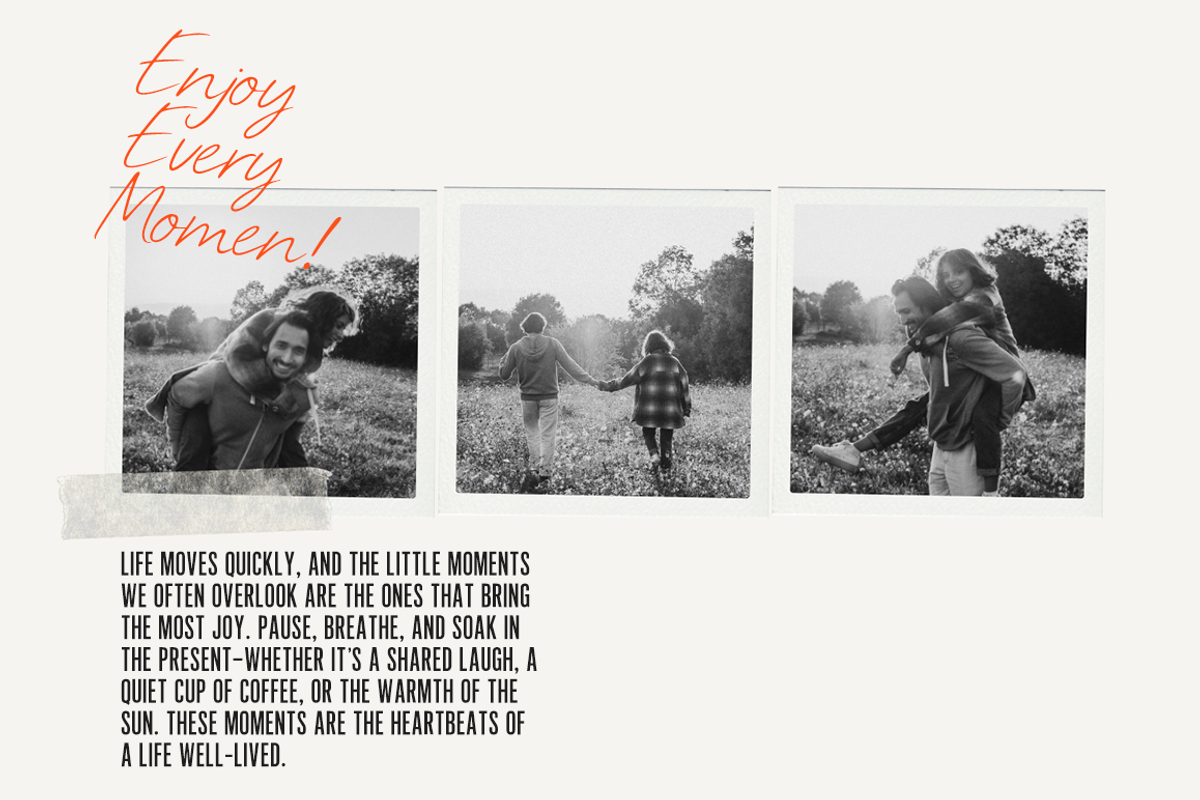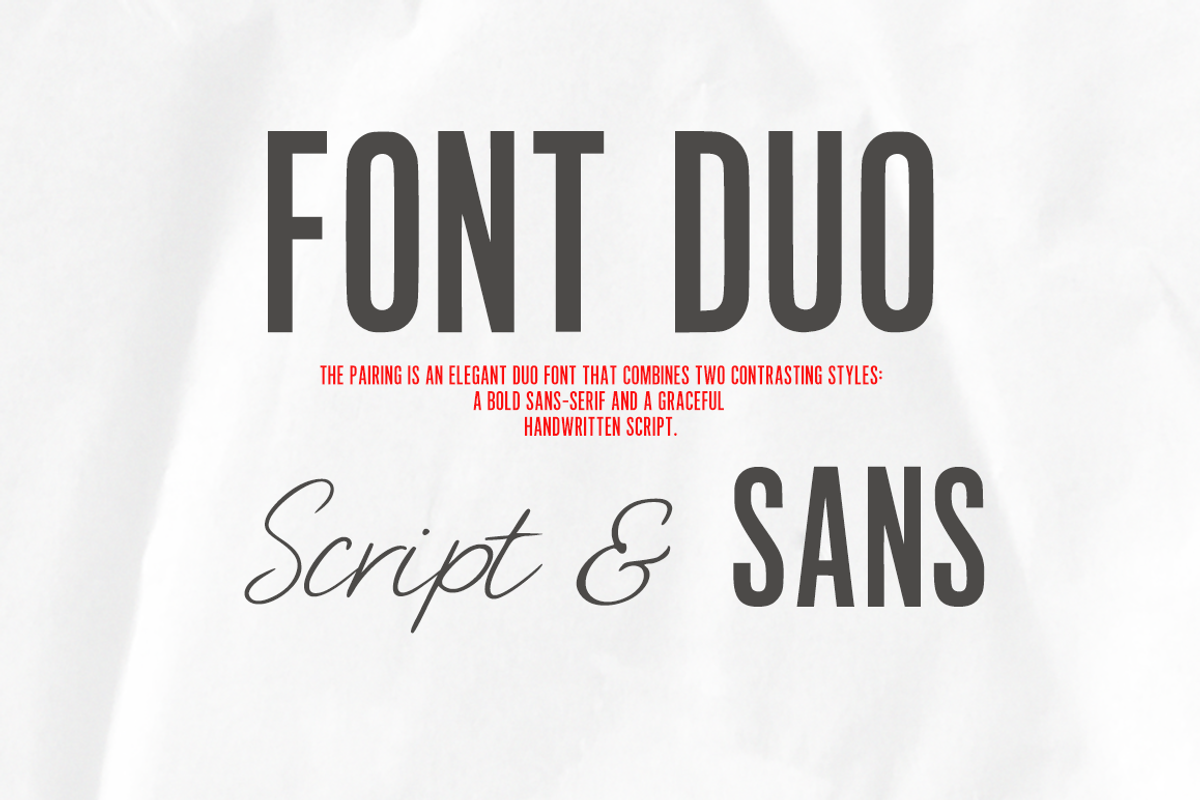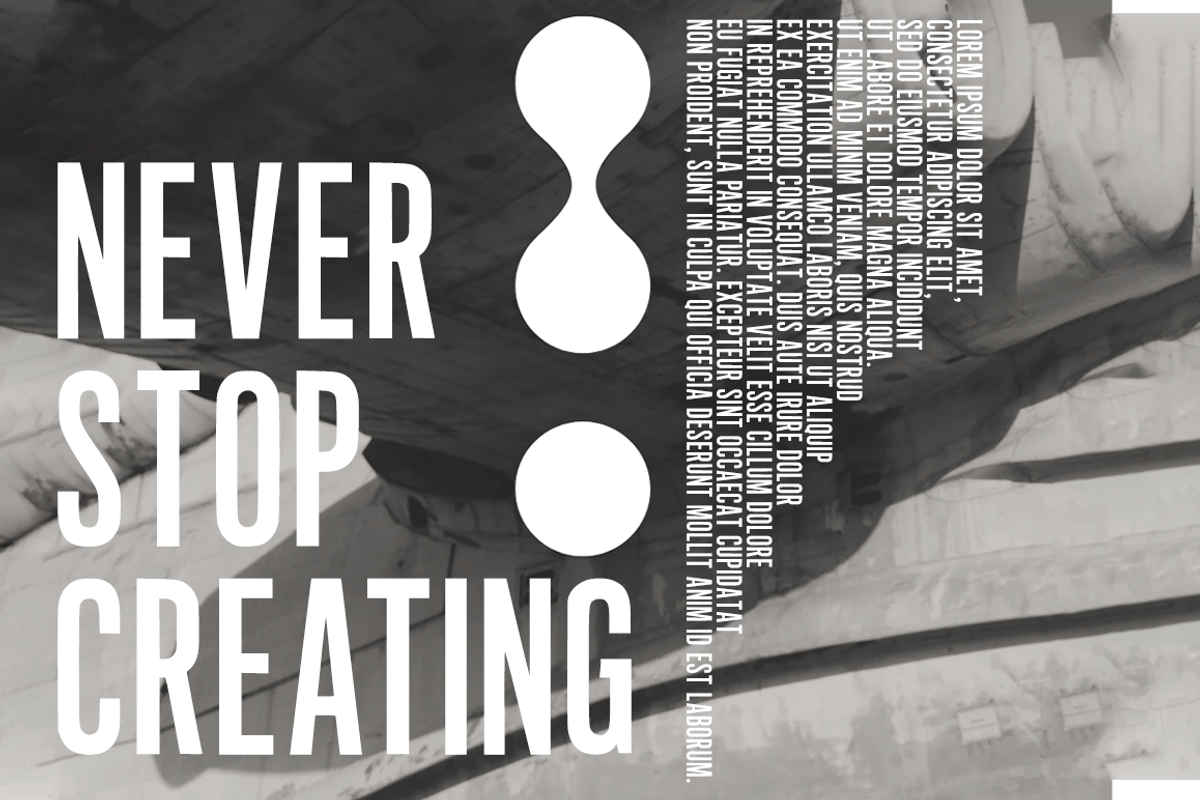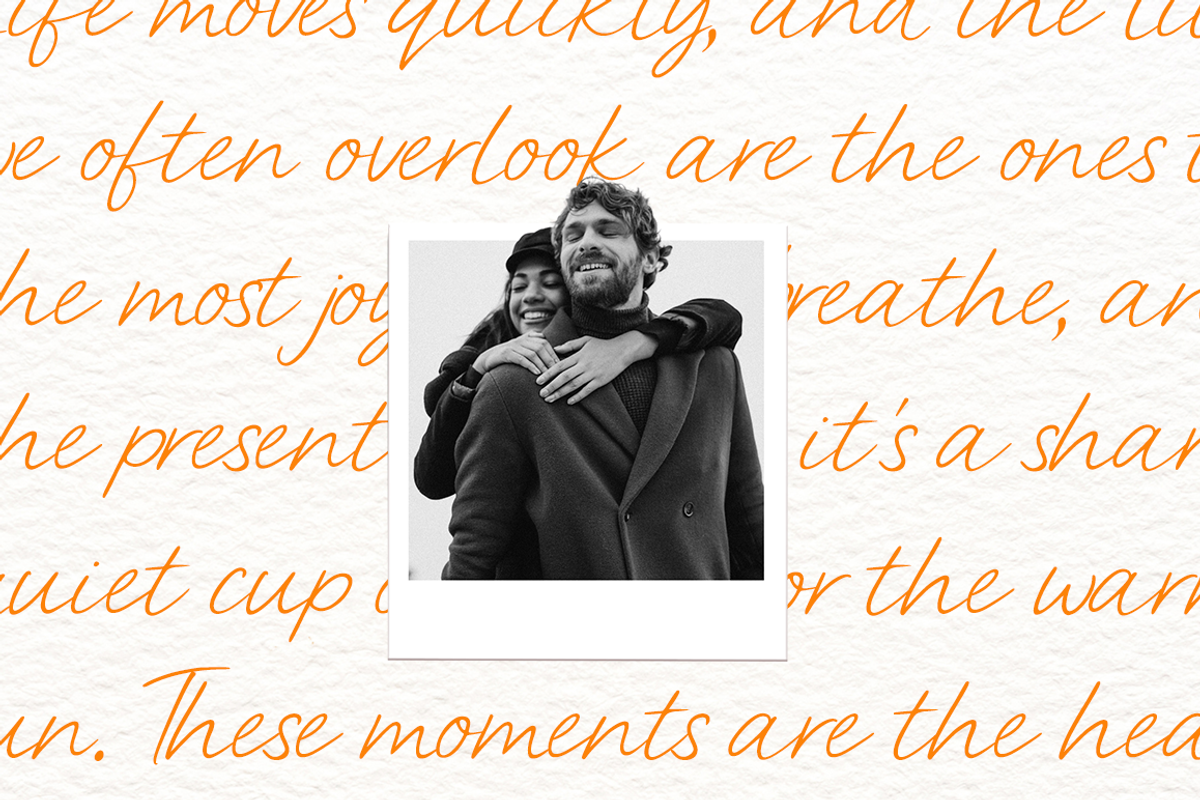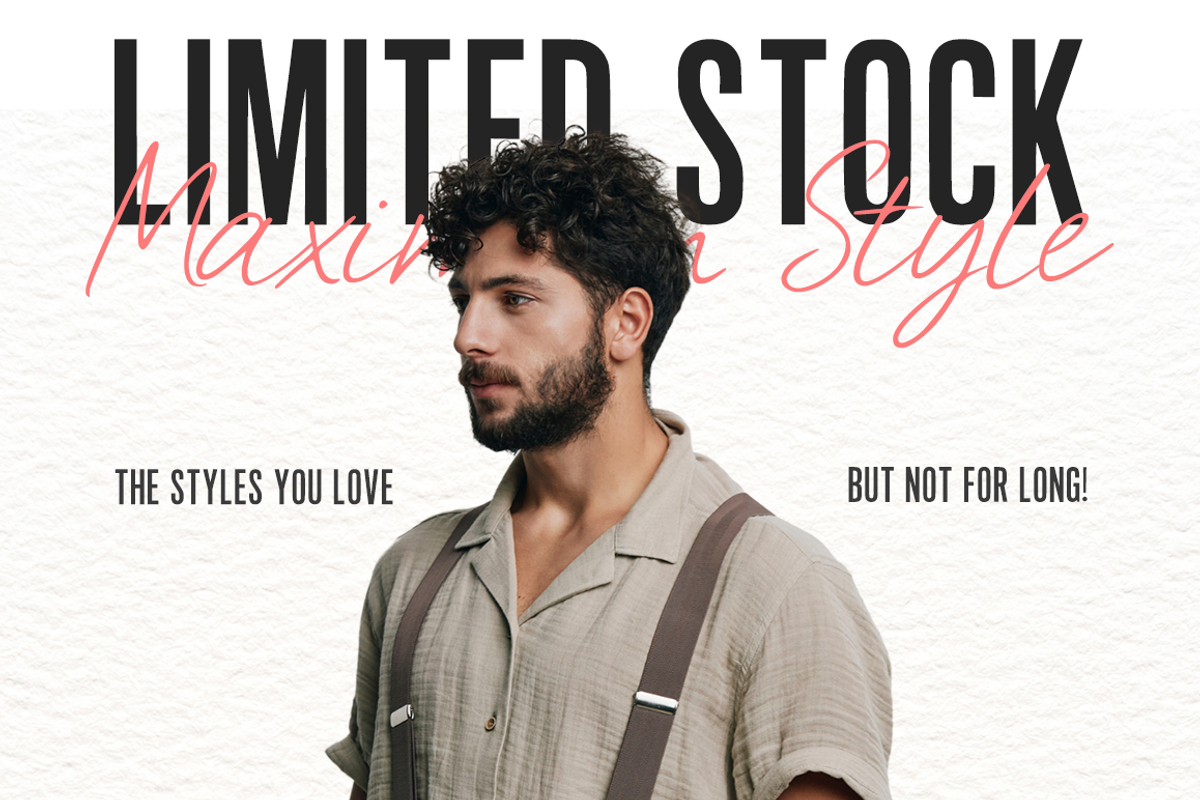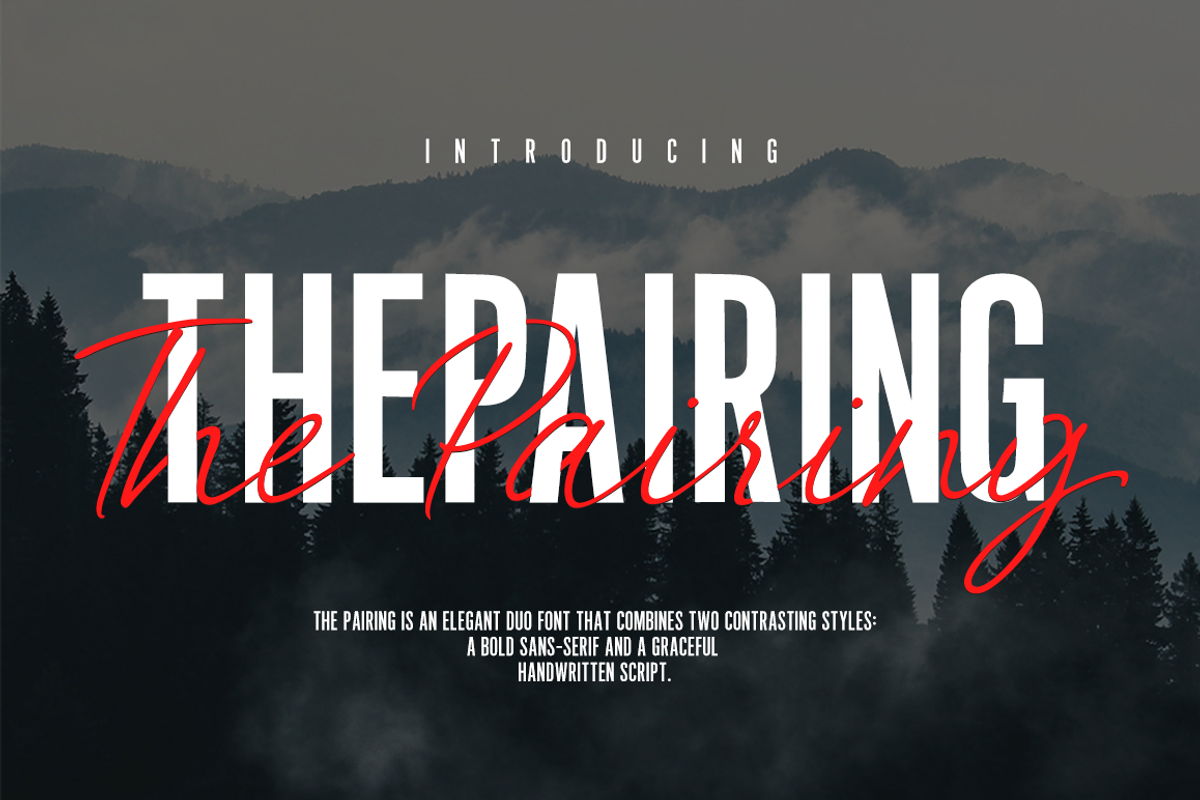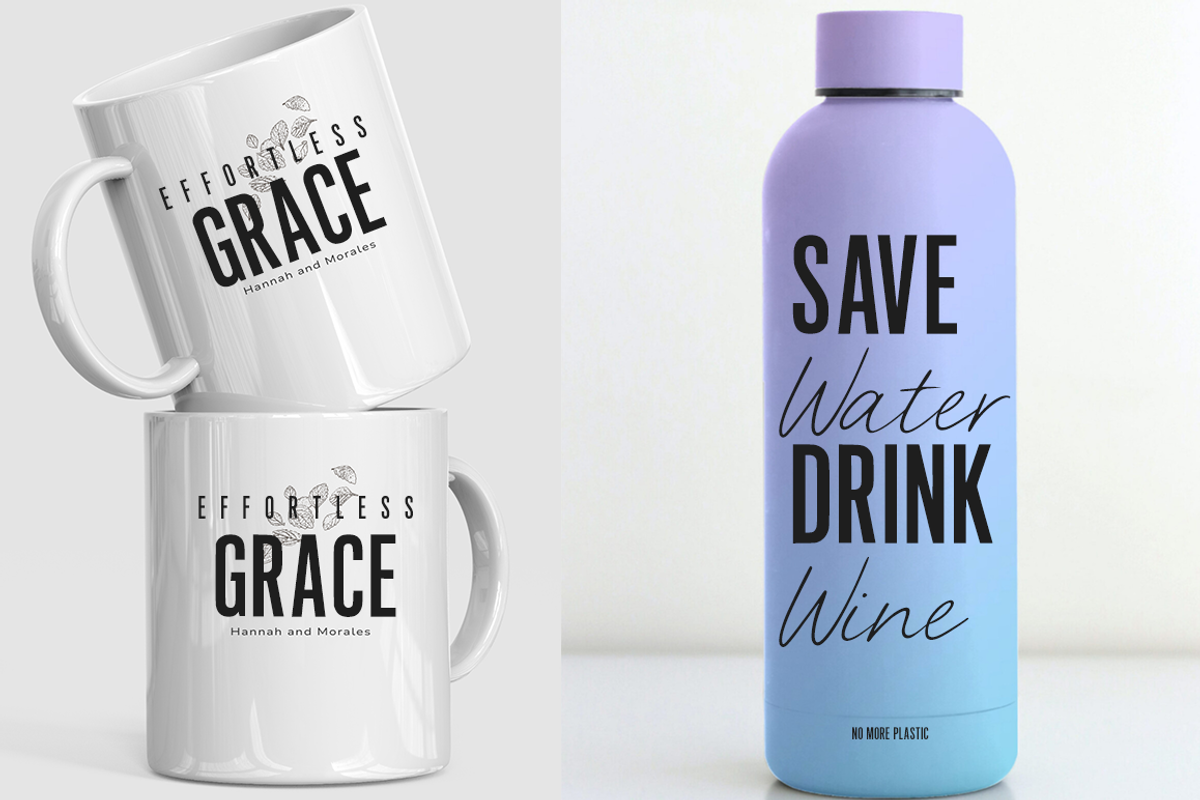
The pairing font duo
The Pairing – Modern Font Duo
The Pairing is a versatile font duo that combines two contrasting styles: a bold, geometric sans-serif and an elegant, flowing script. This pairing creates a strong visual balance, suitable for a wide range of design applications including branding, editorial layouts, wedding invitations, social media content, and typographic quotes.
The sans-serif font offers a clean and impactful uppercase design, while the script font provides a handwritten, expressive character. When used together, they deliver a dynamic and complementary look. Each font is also fully functional on its own for more flexible design use.
Uppercase & lowercase characters
Optimized kerning and spacing for harmonious pairing